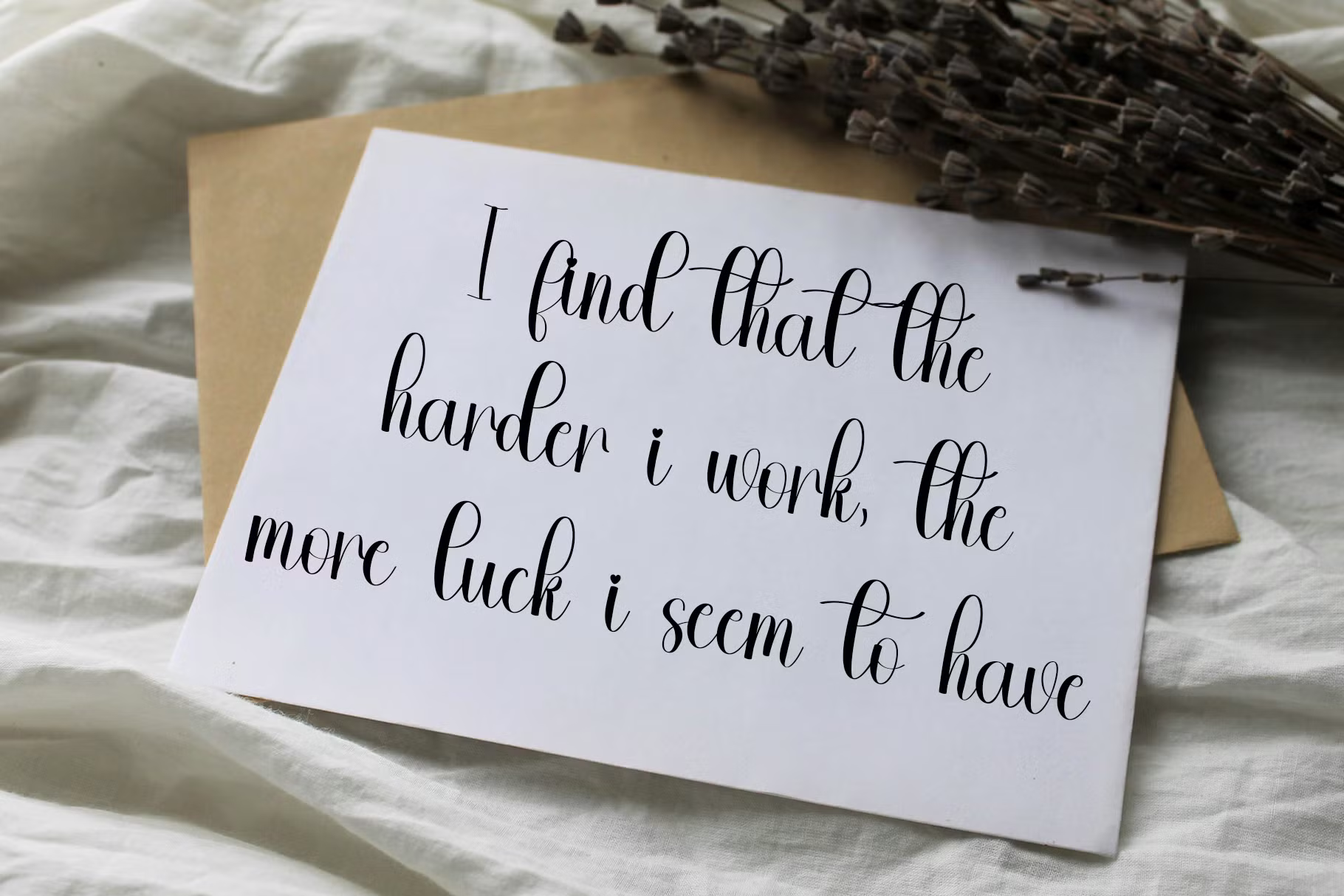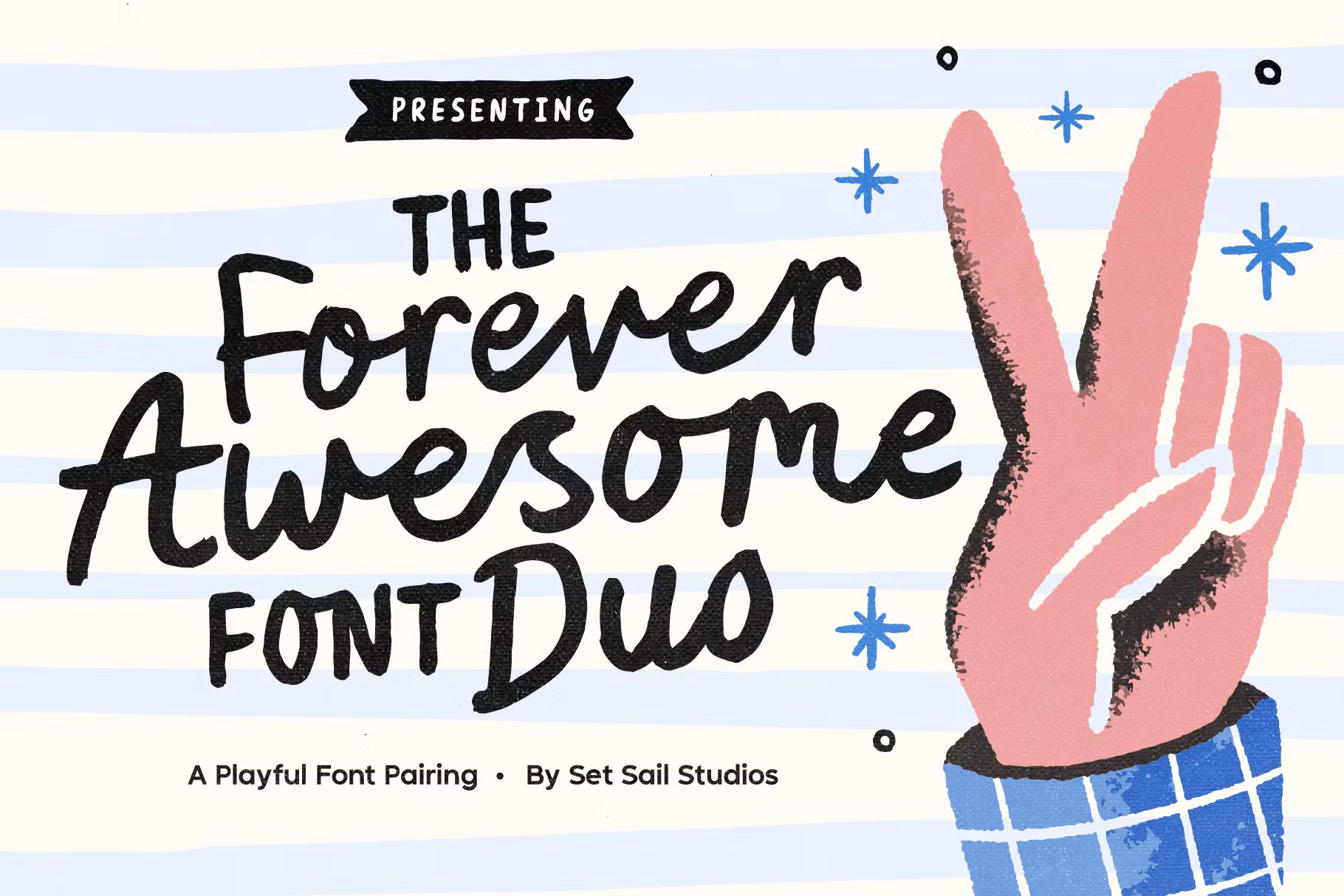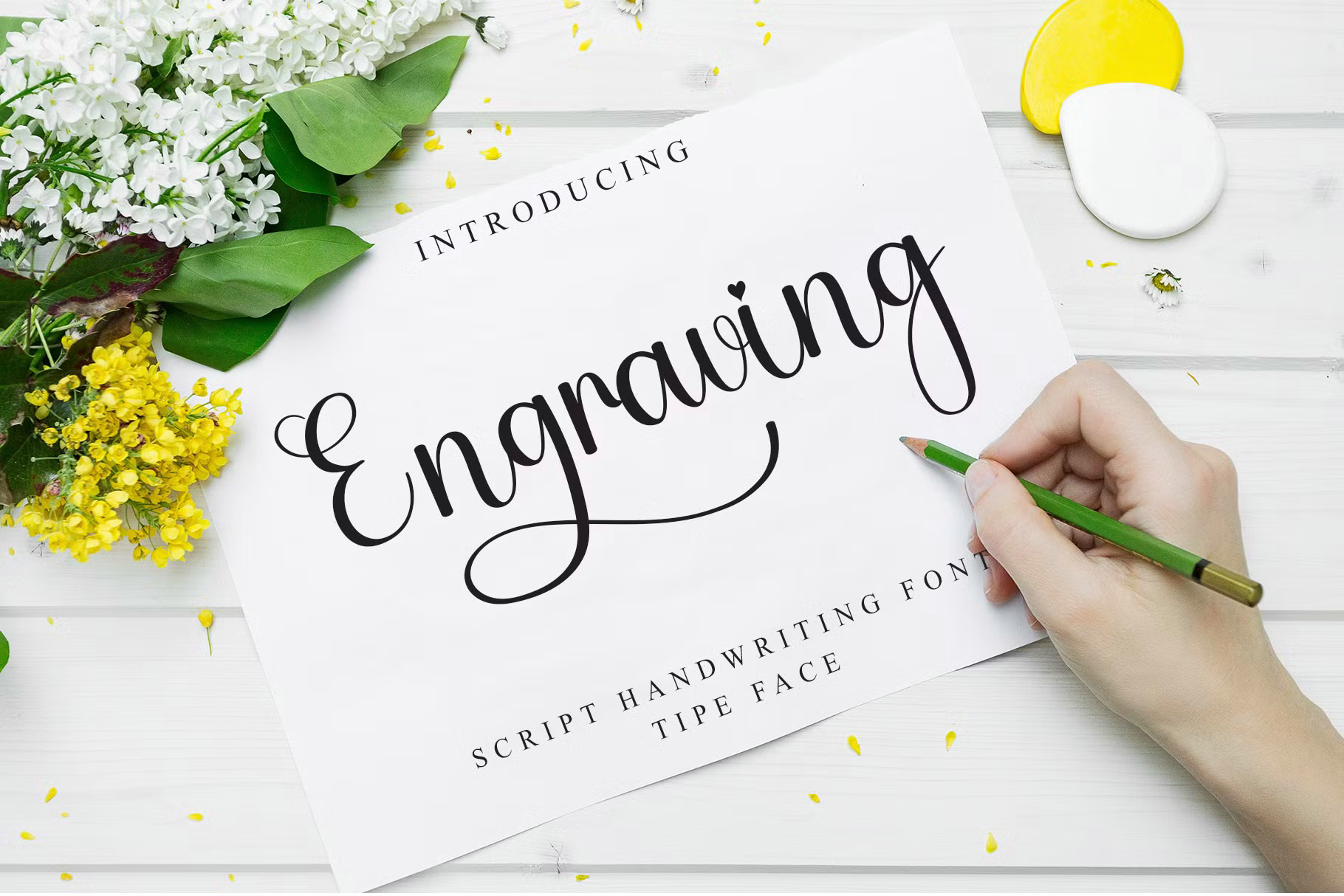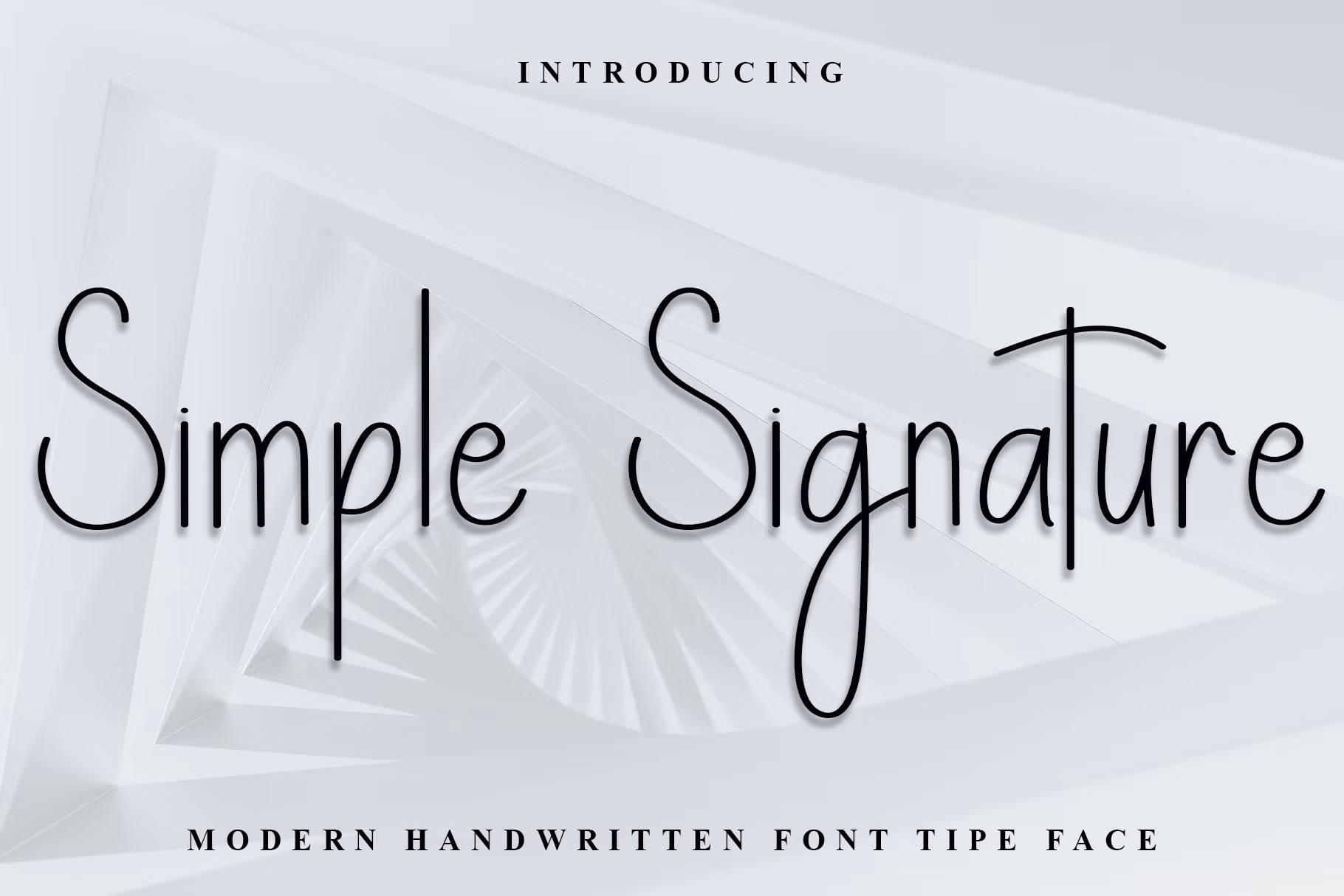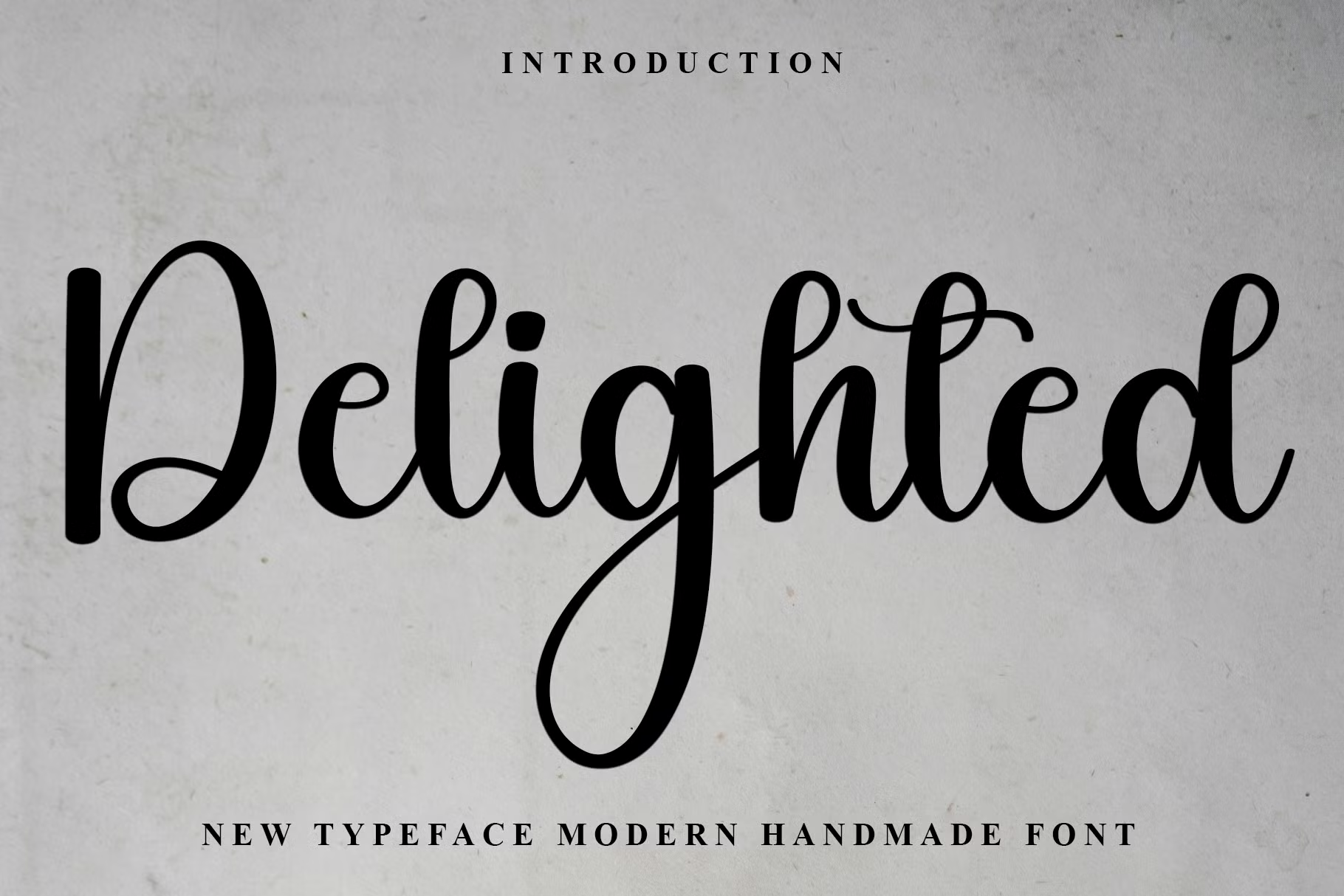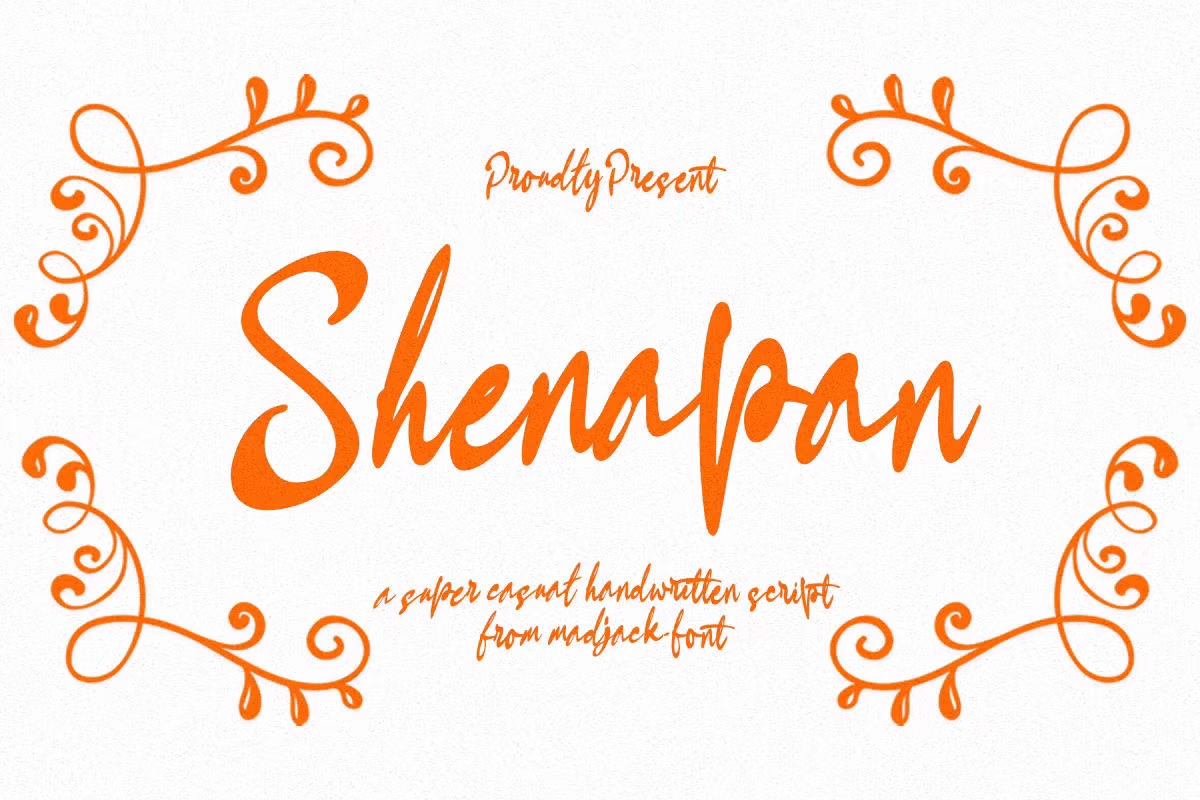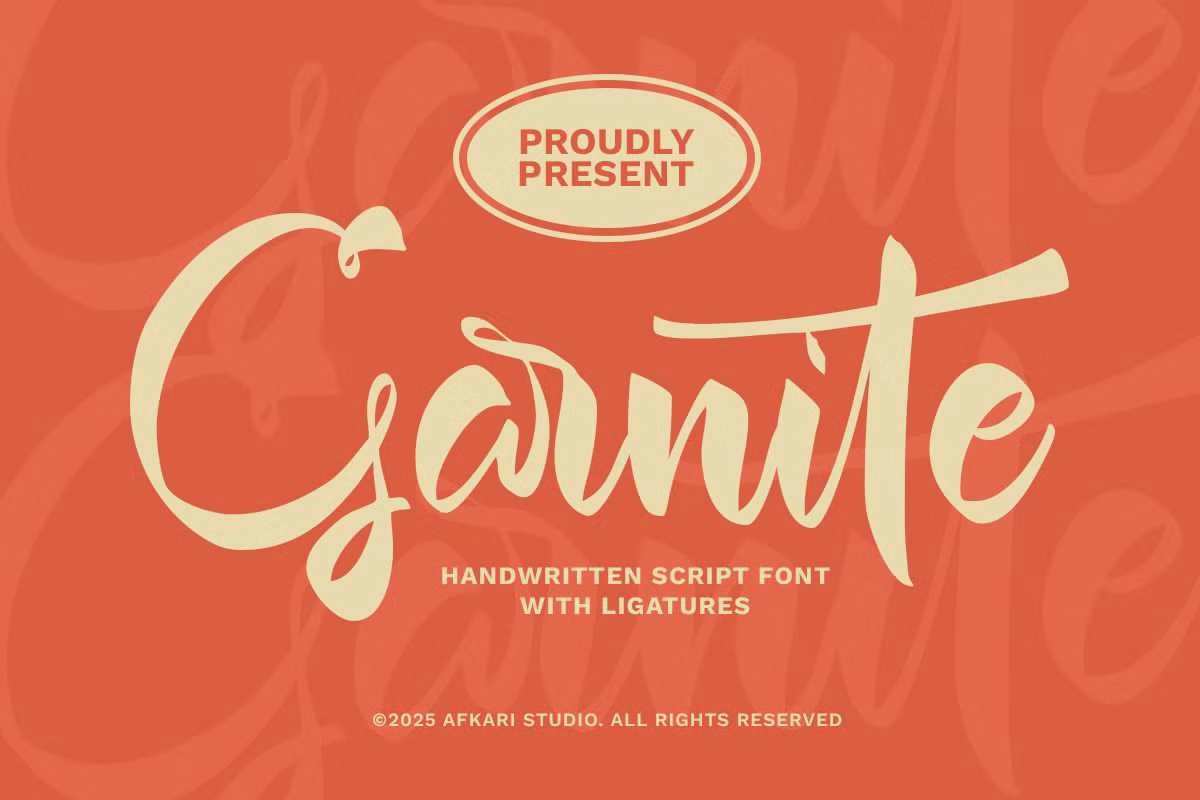
Handwritten fonts bring a personal touch to your designs, blending artistry with modern flair. In this collection, we feature a variety of handwritten fonts that are perfect for any creative project. From the elegant curves of Shunsine to the playful nature of Simple Alphabet, these fonts are designed to captivate and inspire. Each font is unique, offering a distinct character that enhances your branding, invitations, and artistic endeavors. The Forever Awesome Font Duo combines fun and style, while Engraving adds a whimsical touch to holiday projects. Olivas showcases handcrafted vibes, and Simple Signature offers a sophisticated elegance. Lastly, Les Limones adds quirky charm to any project. Explore these fonts and elevate your designs with their enchanting beauty!
Shunsine
Shunsine is a unique and captivating handwritten font that brings a gentle charm to your projects. Its distinctive strokes and soft curves create a delightful personality, making it suitable for a diverse range of design applications, from crafts to branding. This versatile font is compatible with both Windows and open-source platforms, ensuring it can be easily integrated into various design software. With its natural flair, Shunsine adds an artistic touch that resonates with audiences, enhancing everything from invitations to creative portfolios. Perfect for anyone looking to infuse their work with a touch of elegance and warmth.
Simple Alphabet
Simple Alphabet is a whimsical handwritten font that captures the joy and cheer of the holiday season. With its playful design and charming flourishes, it adds a delightful touch to your projects, making it ideal for greeting cards, festive decorations, and seasonal branding. This font brings a nostalgic warmth to your typography, enabling you to create memorable designs that resonate with joy. The font is PUA encoded, providing easy access to its full range of glyphs and ligatures, enhancing your creative flexibility. Let your designs sparkle with the enchanting essence of Simple Alphabet!
Forever Awesome Font Duo
The Forever Awesome Font Duo is a vibrant and playful collection of hand-drawn fonts that bring a fun, inviting energy to your designs. This duo includes a script font that features a full set of alternate characters, complemented by an all-caps font for striking headlines. With 69 ligatures, this font duo ensures your typography flows naturally, making it perfect for logos, packaging, and greeting cards. The fonts are designed to work harmoniously, providing versatility for both playful and serious projects. With multilingual support, Forever Awesome Font Duo is an excellent choice for creatives looking to add a unique touch to their work.
Engraving
Engraving is a whimsical font that captures the essence of creativity and charm. Its playful design, adorned with decorative elements, brings a sense of cheer to your projects. Ideal for holiday designs, greeting cards, and festive branding, this font adds a nostalgic touch that resonates with warmth and joy. The PUA-encoded features allow easy access to a variety of glyphs and ligatures, enhancing your design possibilities. Embrace the enchanting spirit of Engraving and let your typography reflect the magic of the season, making every project feel special and inviting.
Olivas: Tasty Handmade Font Duo
Olivas is a beautifully crafted font duo that encapsulates a handcrafted vibe perfect for food-related projects. Featuring both bold and outline fonts, Olivas adds a unique touch to your designs, making them feel personal and inviting. The subtle handmade imperfections in the letters give your branding, packaging, or hospitality projects an authentic charm. With complete Latin character sets and multilingual support, this font duo is versatile and ready for any creative endeavor. Combine it with natural textures and earthy color palettes for the best visual impact. Elevate your designs with the warm and inviting feel of Olivas!
Simple Signature
Simple Signature is an elegant handwritten font that captures the essence of sophistication and charm. Its flowing lines and graceful curves create a signature-like appearance, making it perfect for personal branding, wedding invitations, and stylish stationery. This font effortlessly combines elegance with a touch of informality, allowing your designs to radiate warmth and authenticity. PUA encoded for easy access to a range of glyphs, Simple Signature enhances your typographic choices, adding unique flair to any project. Elevate your designs with this beautiful font that exudes class and individuality.
Delighted
Delighted is a beautifully crafted handwritten font that captures the joyous spirit of celebration. Its whimsical design is perfect for creating festive greeting cards, invitations, and seasonal decorations. This font evokes a warm and inviting atmosphere, making it ideal for any holiday-themed project. With easy access to numerous glyphs and ligatures thanks to its PUA encoding, Delighted enhances your creative potential and allows for unique typographic expressions. Let your designs shine with the enchanting charm of Delighted, making every project feel special and memorable.
Shenapan Script
Shenapan Script is a stylish and elegant handwritten font that brings a modern touch to classic calligraphy. With its flowing lines and varied baselines, this font captures the beauty and spontaneity of natural handwriting. PUA encoded, it provides easy access to all its unique glyphs and alternates, allowing for creative flexibility in your designs. Perfect for branding, invitations, and personal projects, Shenapan Script adds a sophisticated flair that enhances the aesthetic appeal. Let your typography shine with this charming font that effortlessly blends elegance with a contemporary edge.
Garnite - Handwritten Script Font
Garnite is a sophisticated handwritten script font designed to bring a refined yet personal touch to your projects. Its smooth curves and elegant flow mimic natural handwriting, making it perfect for branding, invitations, and heartfelt messages. This versatile font is ideal for both casual and professional designs, adding a human element that resonates with audiences. With PUA-encoded characters, accessing its unique glyphs is effortless, allowing for creative expression without limits. Whether you're crafting a logo or a piece of art, Garnite adds a stylish flair that truly speaks to the heart.